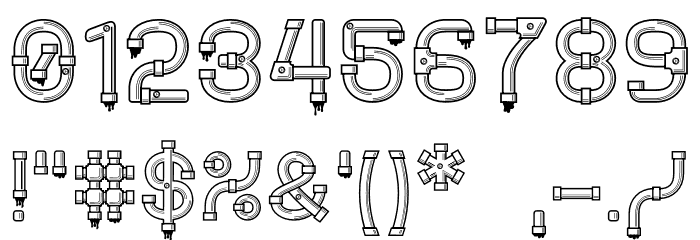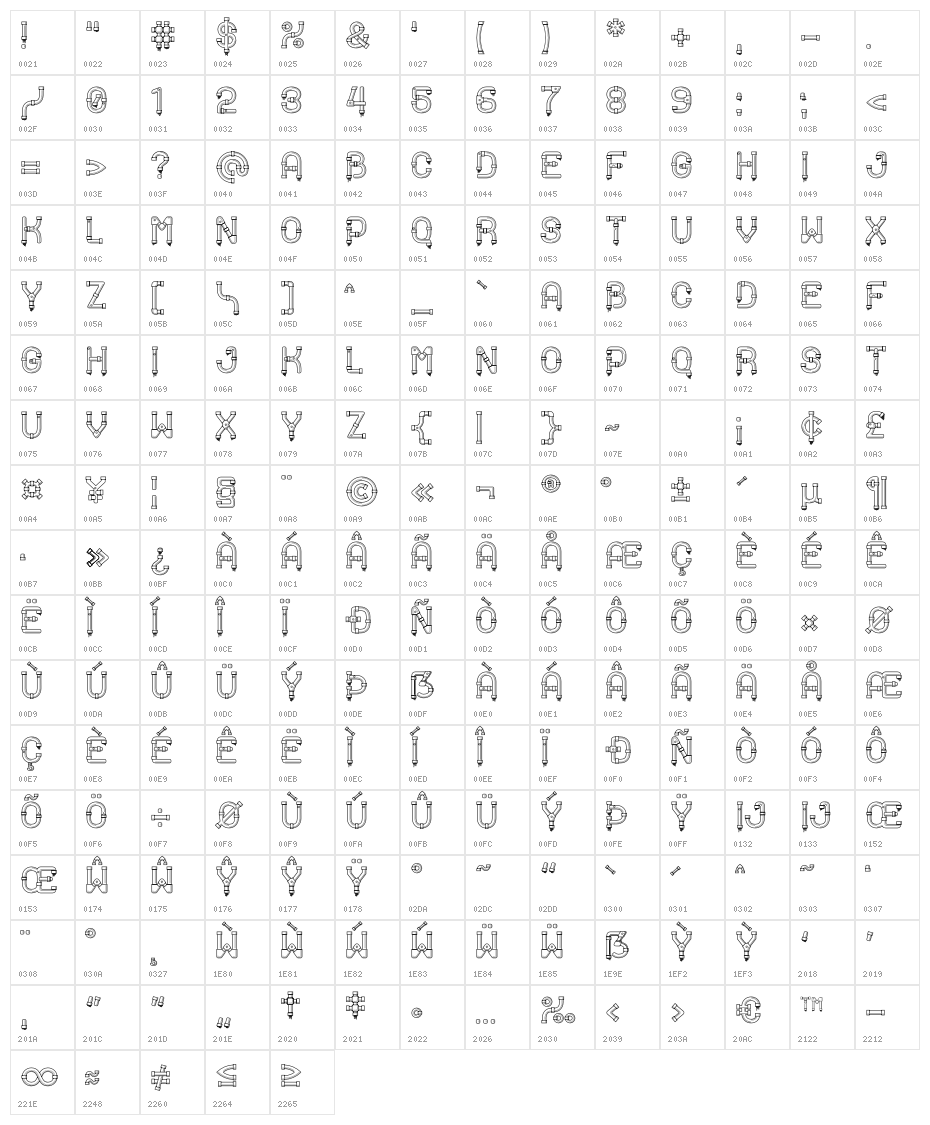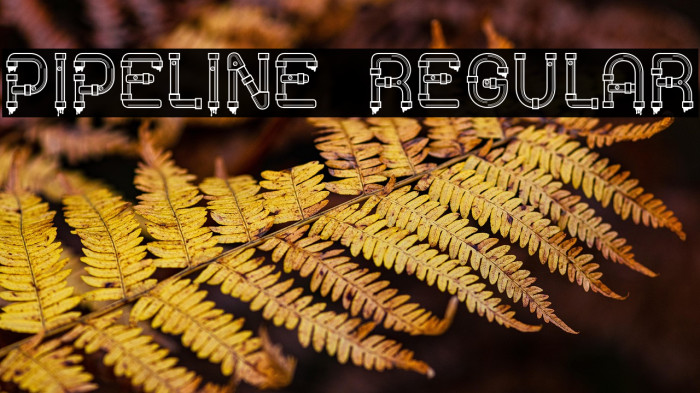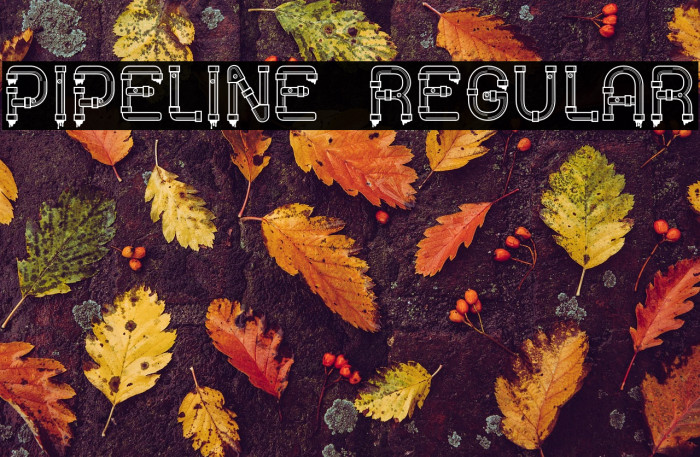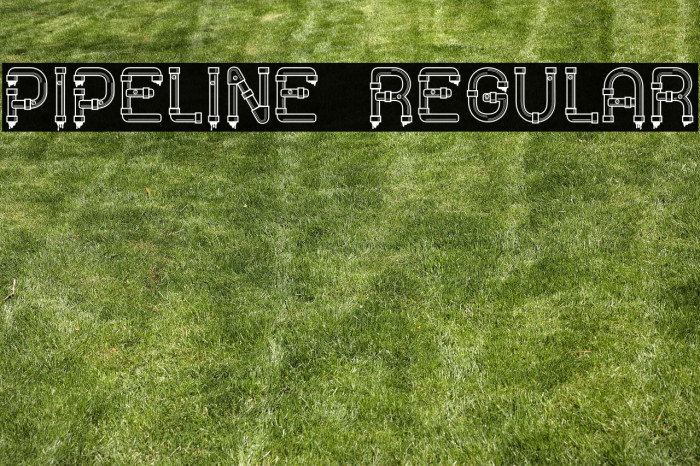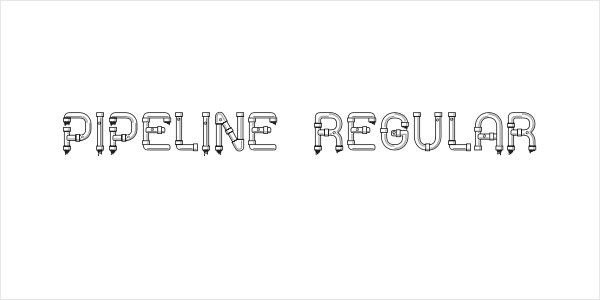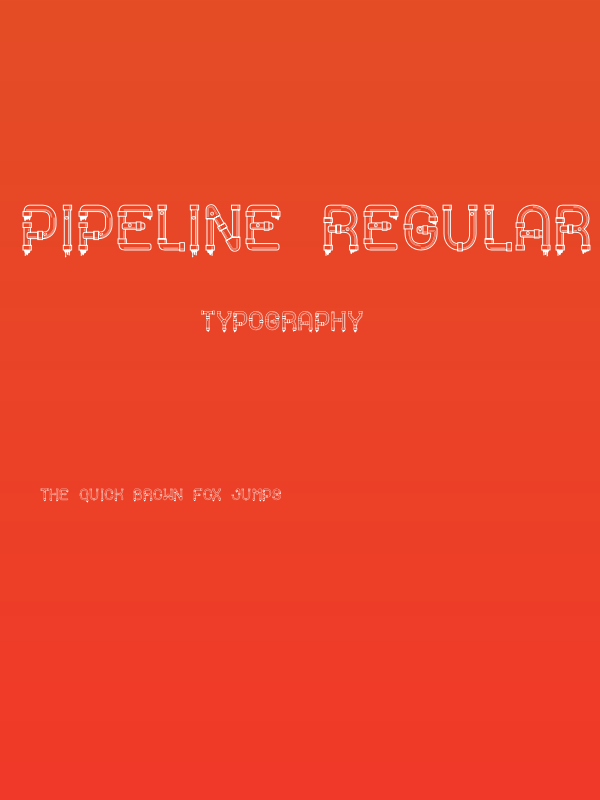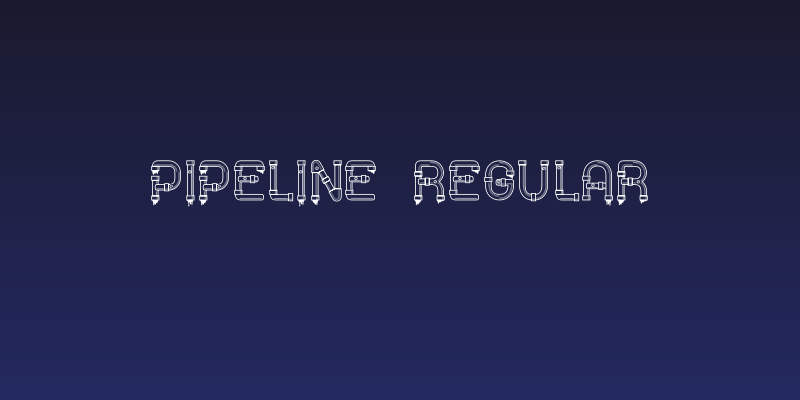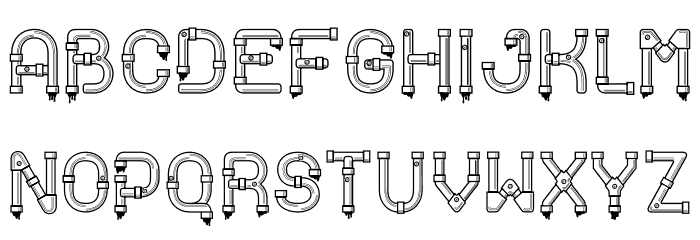
Pipeline Regular Font
Pipeline Regular Description
This font features a unique and industrial design, reminiscent of interconnected pipes and plumbing systems. Each character is constructed with a series of lines and curves that mimic the appearance of metal pipes, complete with joints and connectors. The design is intricate, with attention to detail that gives it a three-dimensional effect. The uppercase and lowercase letters maintain a consistent style, while the numbers and special characters are crafted to match the overall theme. This font is highly decorative, making it ideal for projects that require a bold and distinctive look.
| Overall Style | Industrial, Decorative |
| Use Case | Logos, Posters, Branding |
| Proposed Projects | Ideal for industrial-themed posters, logos, and branding materials that require a bold and unique aesthetic. |